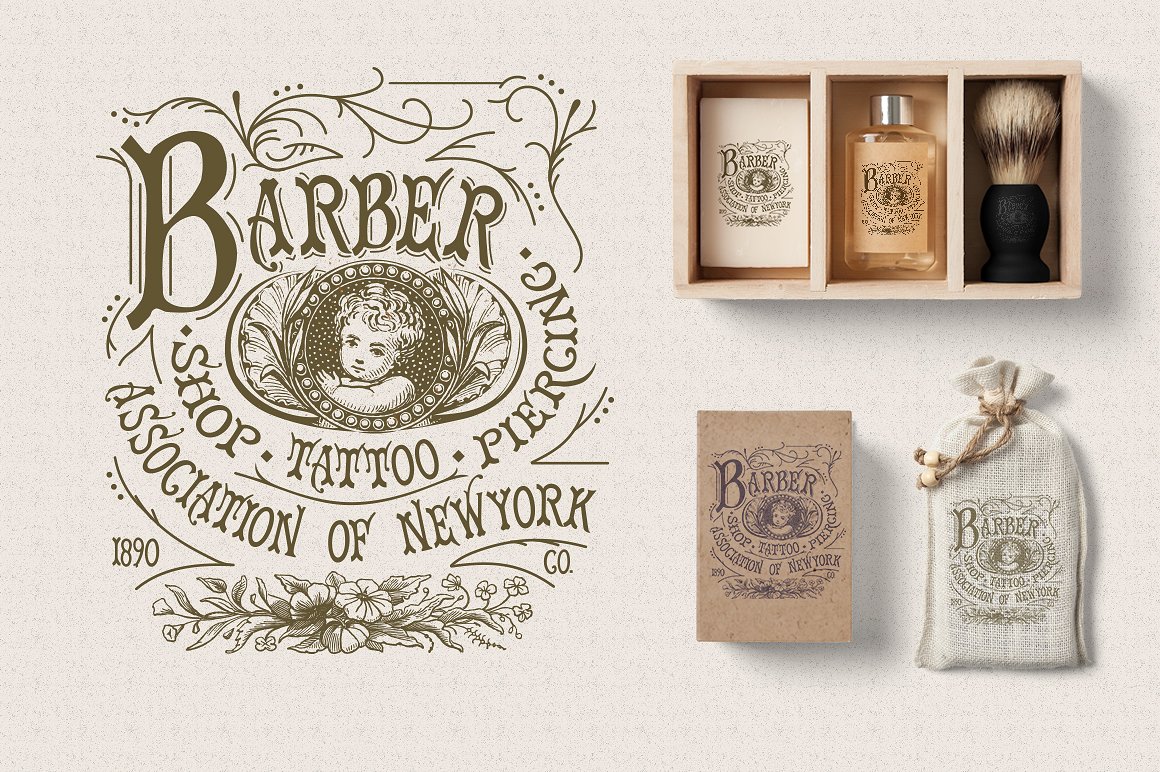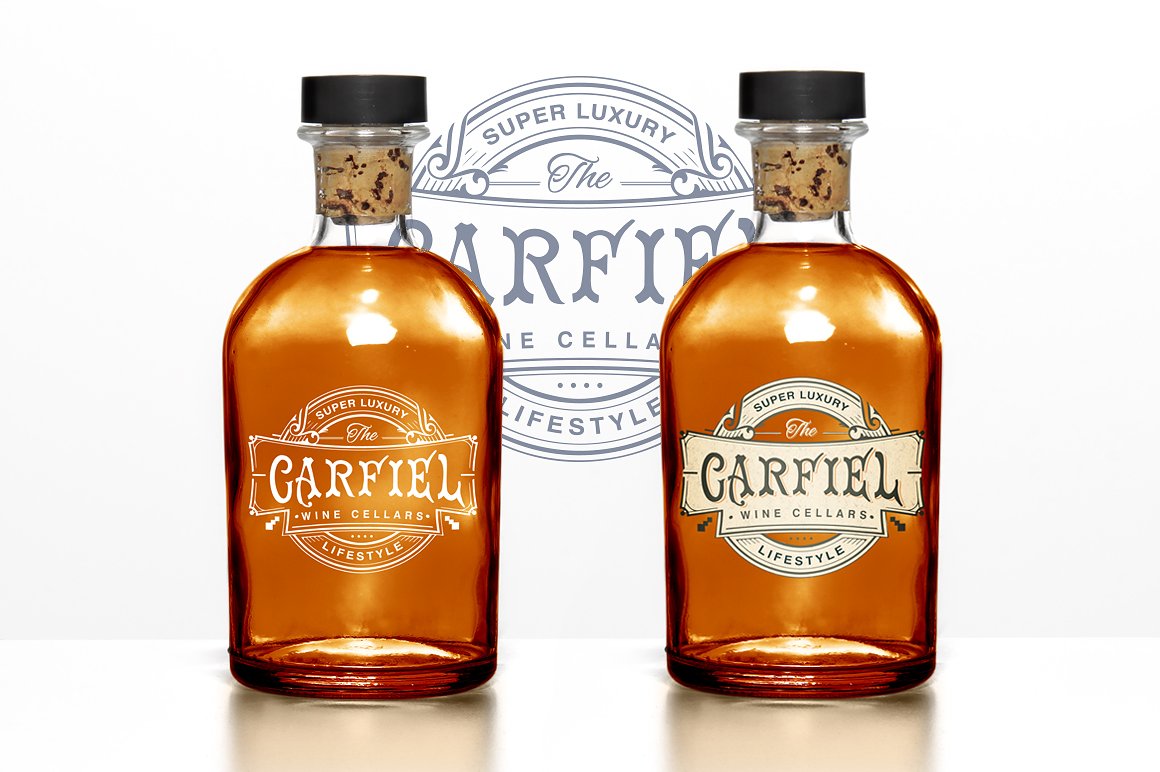
Introduction to Salvathore Font Font
Fonts play a crucial role in design, and the Salvathore Font font is a typeface that brings both character and versatility to any project. Whether you’re working on a branding project, a website, or a print design, the Salvathore Font font offers a unique style that can elevate your work.
Salvathore is an elegant Victorian font inspired by old school advertising companies of the 1800s.
It has a strong and stunning Victorian vibe, but with a bright, modern twist Use in all your creative projects for endlessly breathtaking typographic possibilities.
Key Features of Salvathore Font Font
Why Choose Salvathore Font Font?
The Salvathore Font font is more than just a typeface – it’s a design tool that helps you communicate your message with style and clarity. Its unique character set and versatile design make it suitable for a wide range of applications, from elegant invitations to bold headlines.
With its carefully crafted letterforms and balanced proportions, the Salvathore Font font ensures readability and visual appeal across all mediums.
What makes Salvathore Font font special?
The Salvathore Font font stands out with its unique design, exceptional readability, and versatility across various design applications.